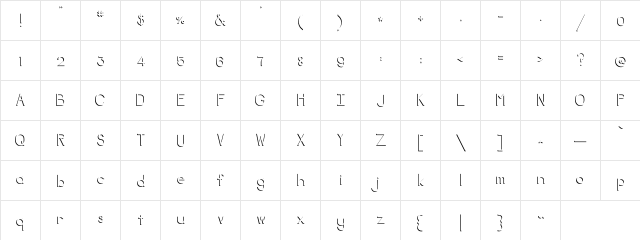
NegativeSpace Medium
Design Context for NegativeSpace Typeface
NegativeSpace is a composed and adaptable typeface that performs quietly and consistently across a wide range of design contexts.